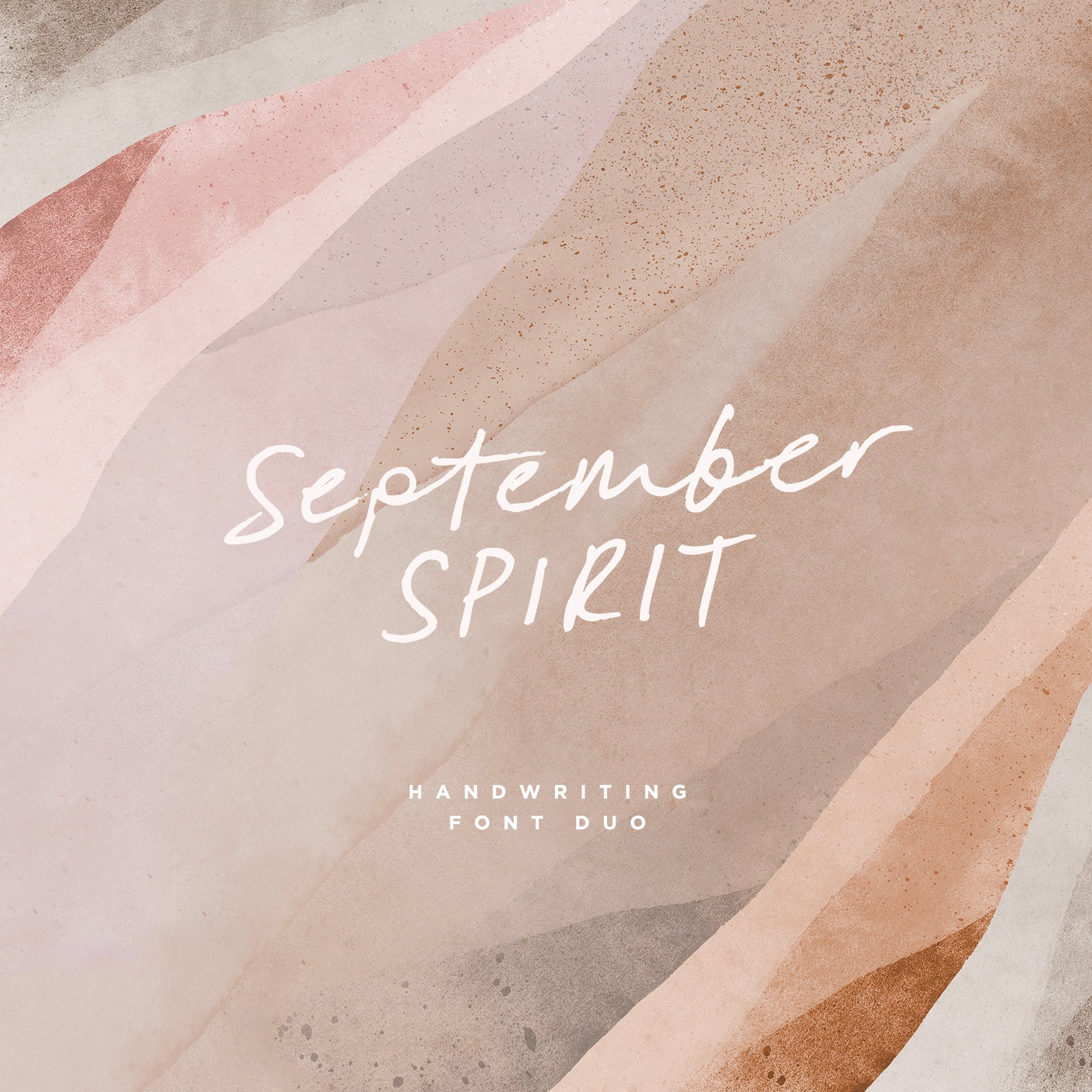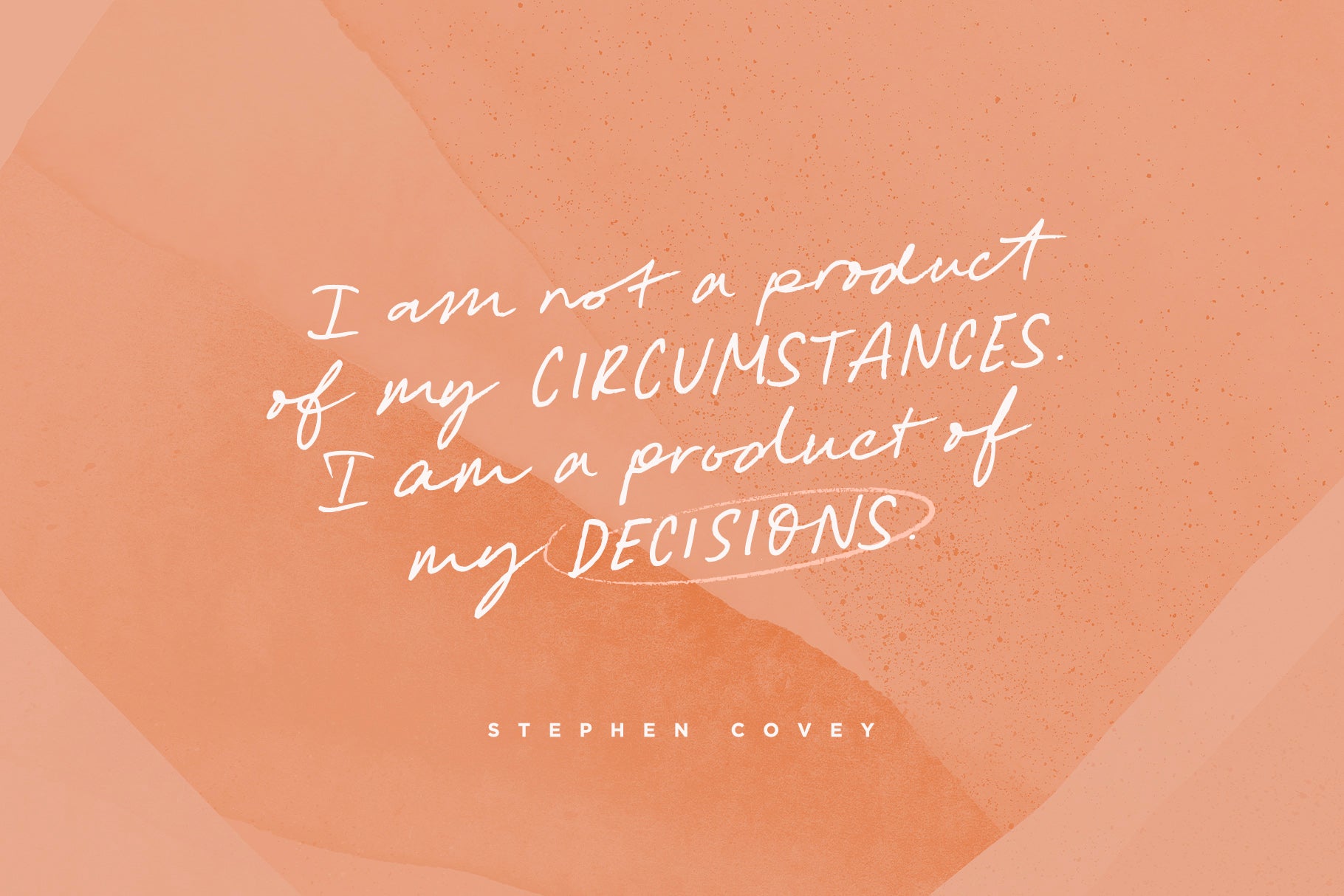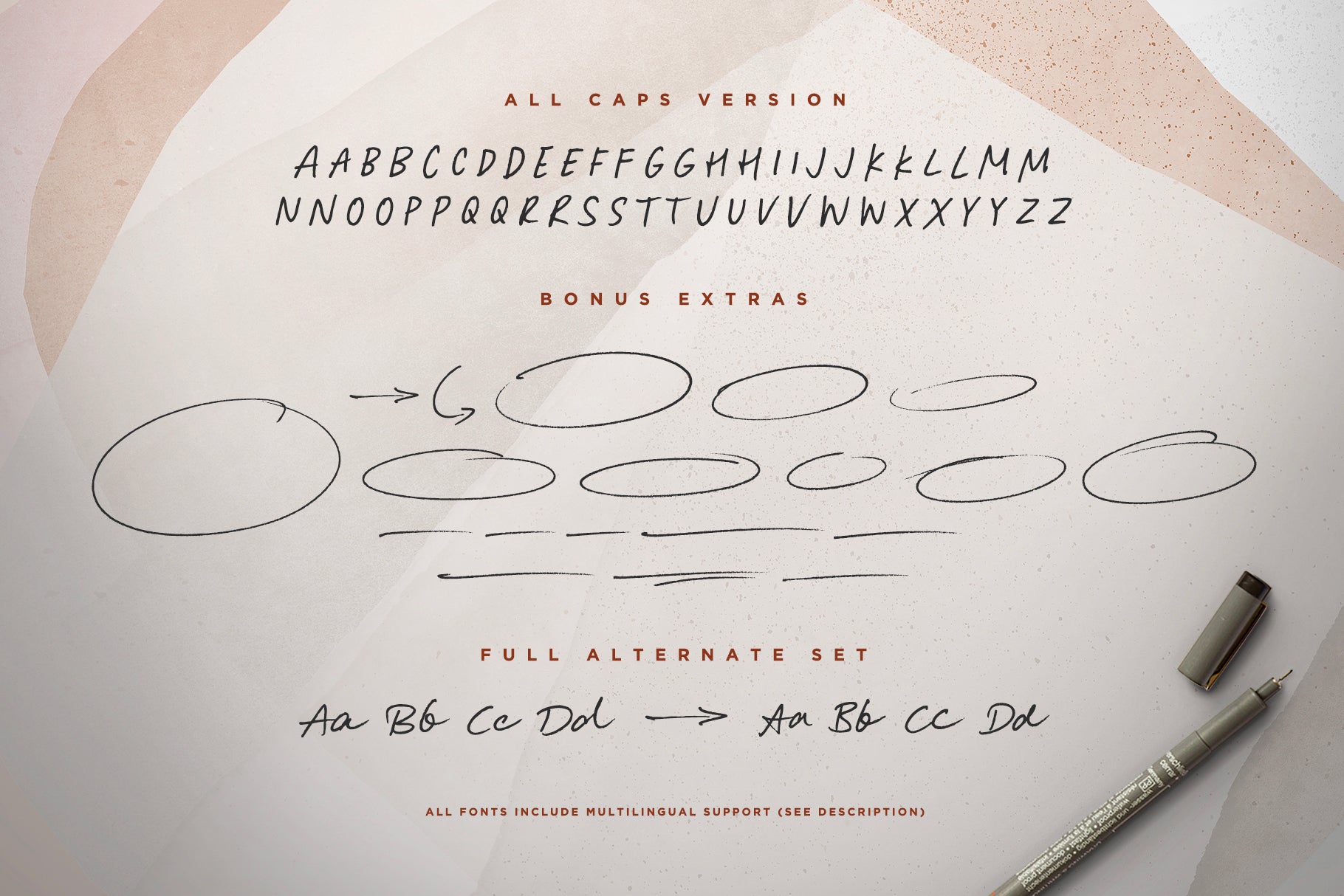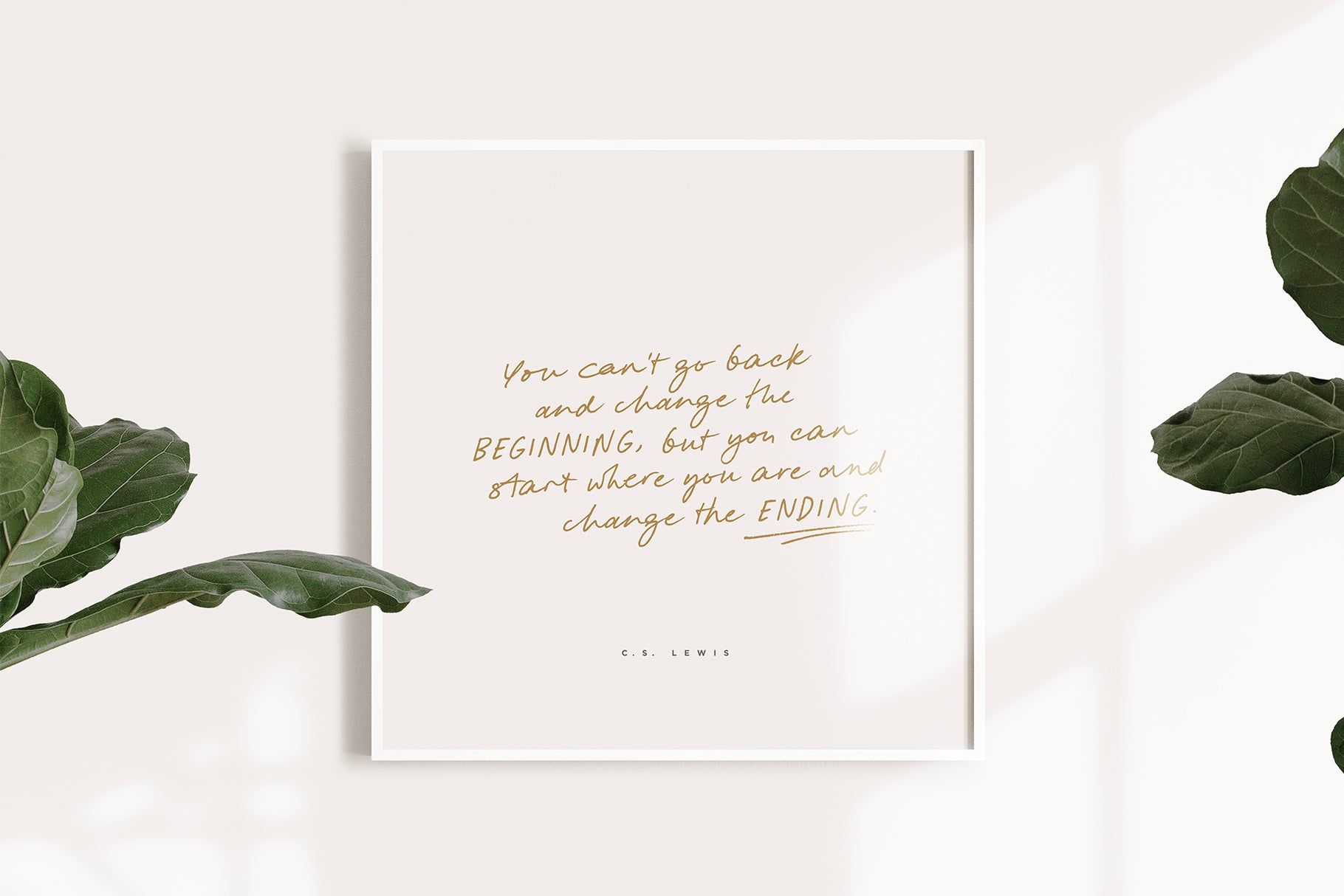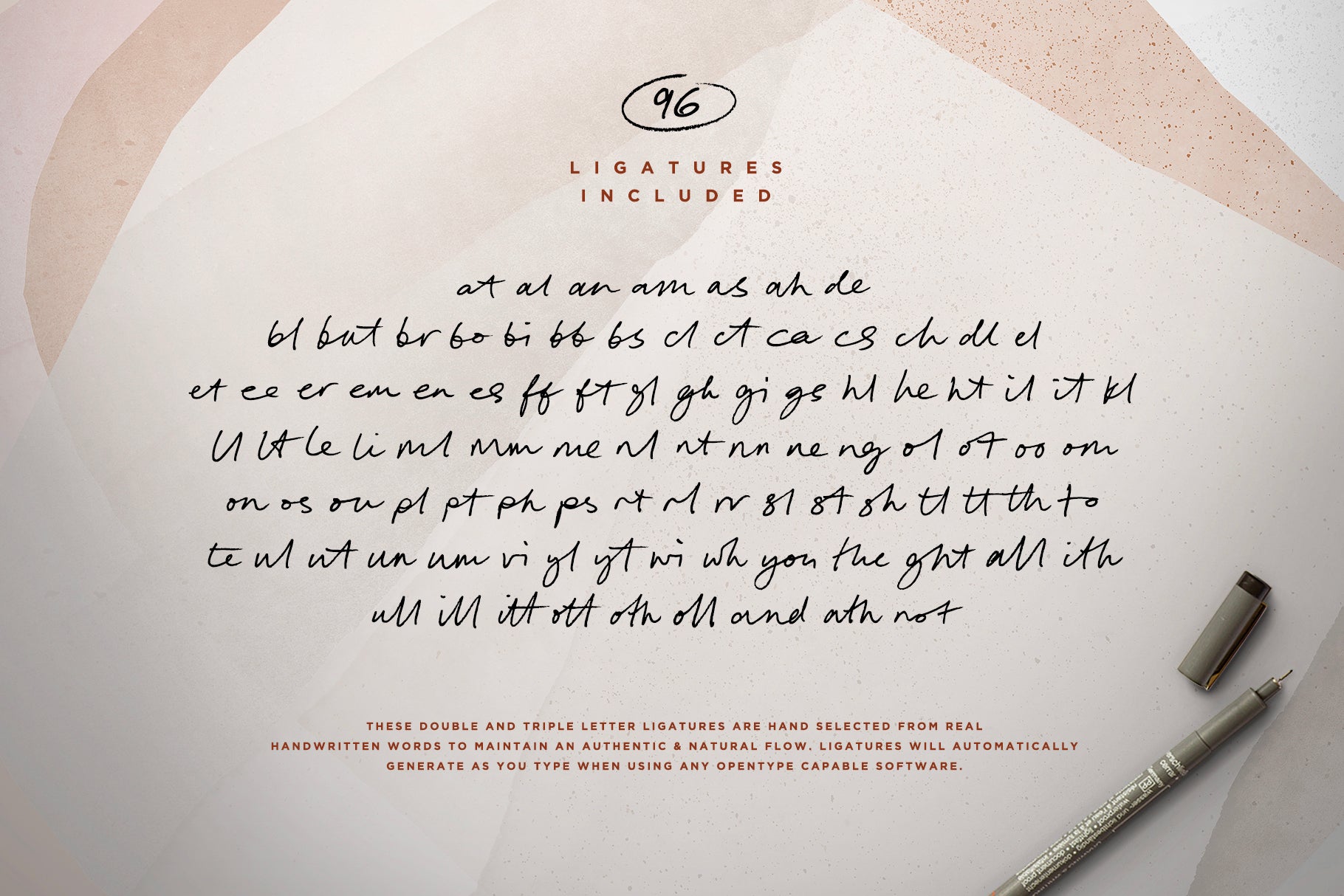
September Spirit Font Duo
The September Spirit Font Duo includes four font files in TTF and OTF formats: a fast-flowing handwritten font with upper and lowercase characters, an alternate version with a new set of characters, an all-caps font for emphasis, and a bonus font featuring hand-drawn arrows, circles, and underlines. This duo utilizes a range of ligatures and alternate characters to create a natural handwritten style.